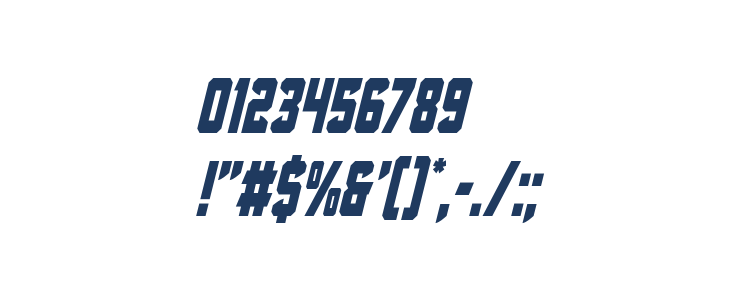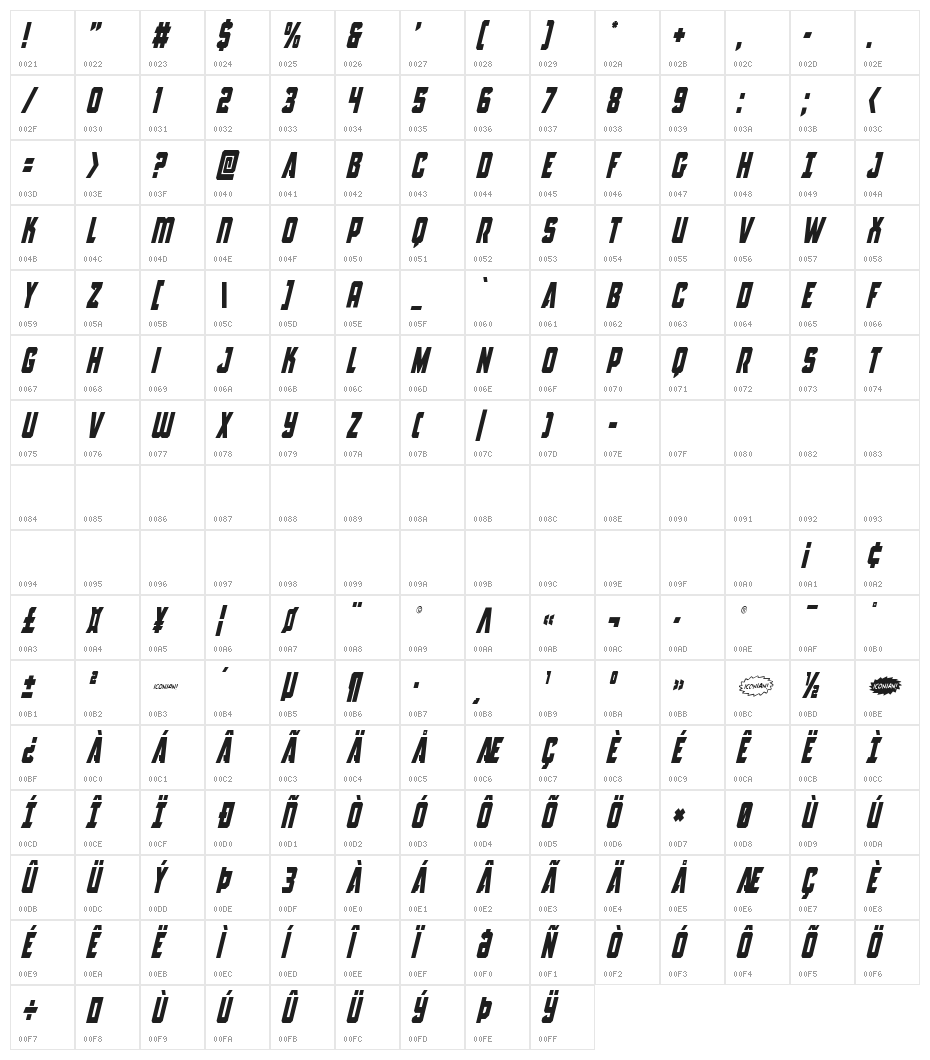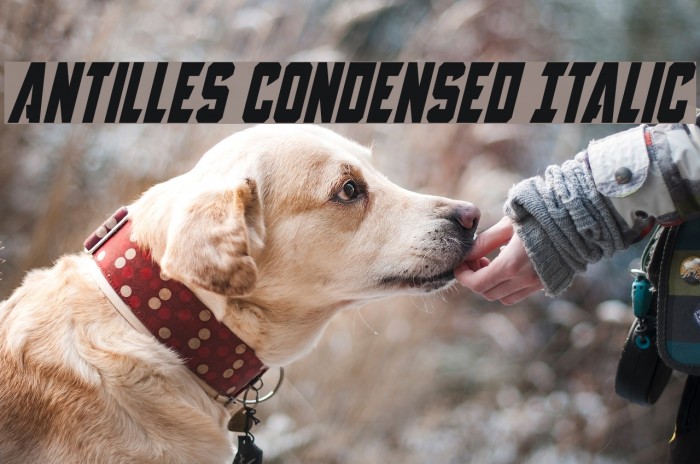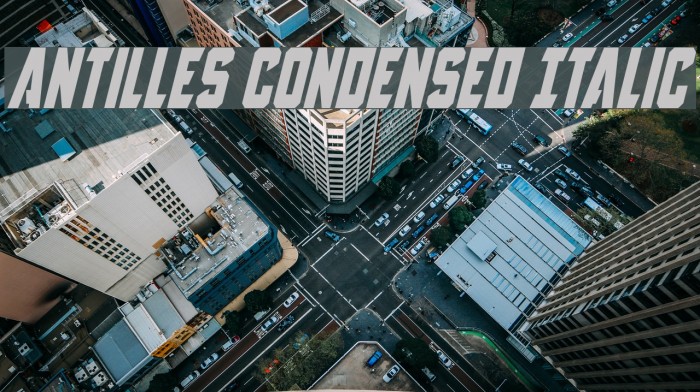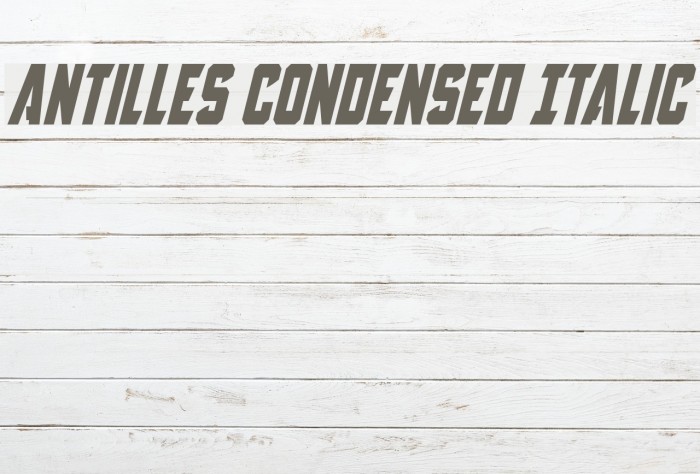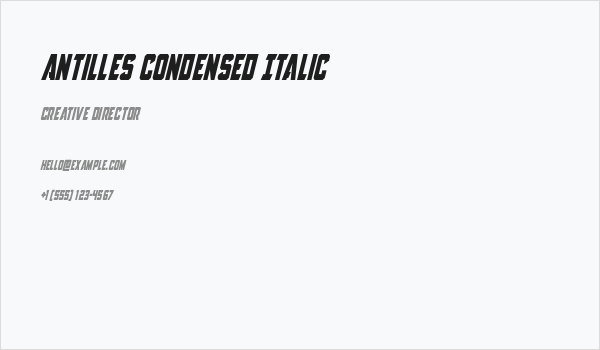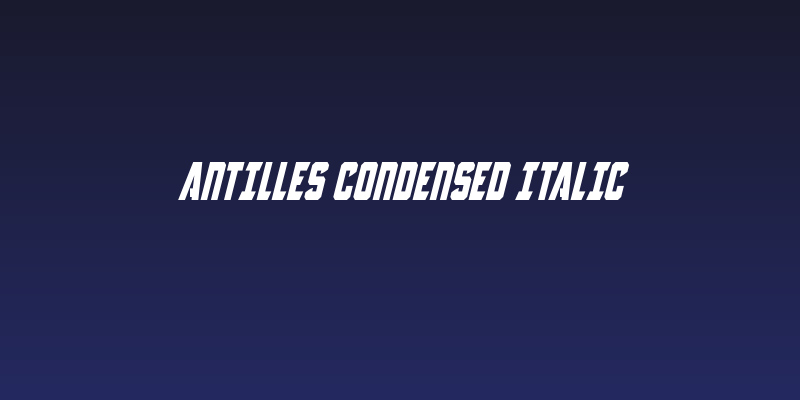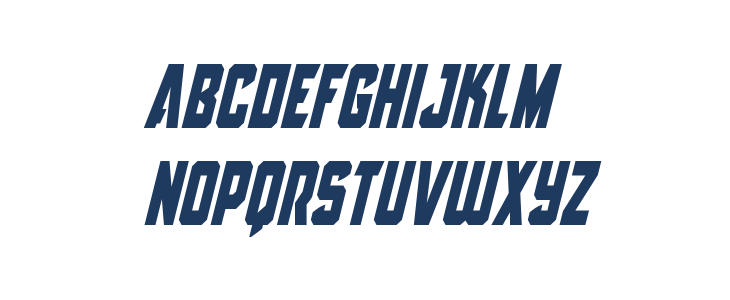
Antilles Condensed Italic Font
Antilles Condensed Italic Description
This font features a bold and dynamic style with a condensed and italicized form. The characters are sharply angled, giving a sense of movement and energy. The uppercase letters are prominent and commanding, while the lowercase letters maintain a consistent style that complements the overall design. The numbers are equally bold, ensuring readability and impact. Special characters are designed to match the boldness and angularity of the letters, making them suitable for attention-grabbing text. The font's condensed nature allows for efficient use of space, making it ideal for headlines and titles where space is limited but impact is necessary.
| Proposed Projects | Ideal for sports branding, action movie posters, dynamic advertising campaigns, and any project requiring a bold, energetic typeface. |